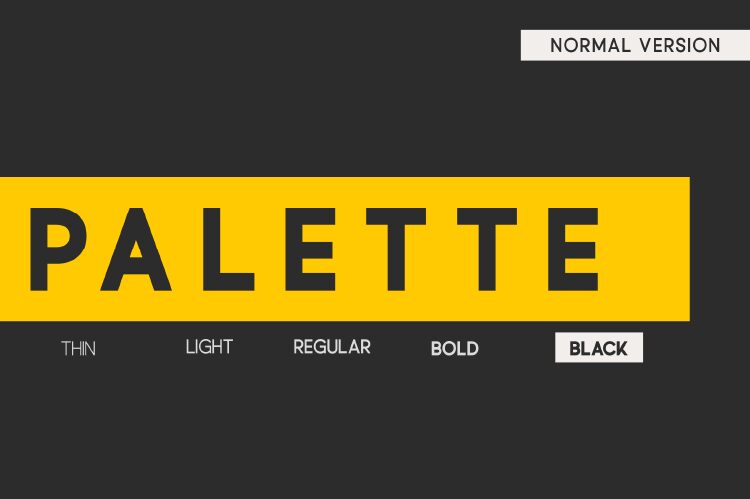
Palette Light
Palette font by Nandesign Studio is a free sans serif font with a geometric, clean, and modern design. Its structured composition and light style pair wonderfully to create minimalistic arrangements in all types of designs. Create exceptional geometrical logotypes with this simple resource!
It’s perfect for use in marketing material design such as flyers, brochures, posters, business cards, or letterheads. Brighten up your book or magazine covers about scientific topics or engineering with the stylish typeface. Use it for UI/UX apps and websites to achieve an unparalleled perspective that grabs users’ attention every time!